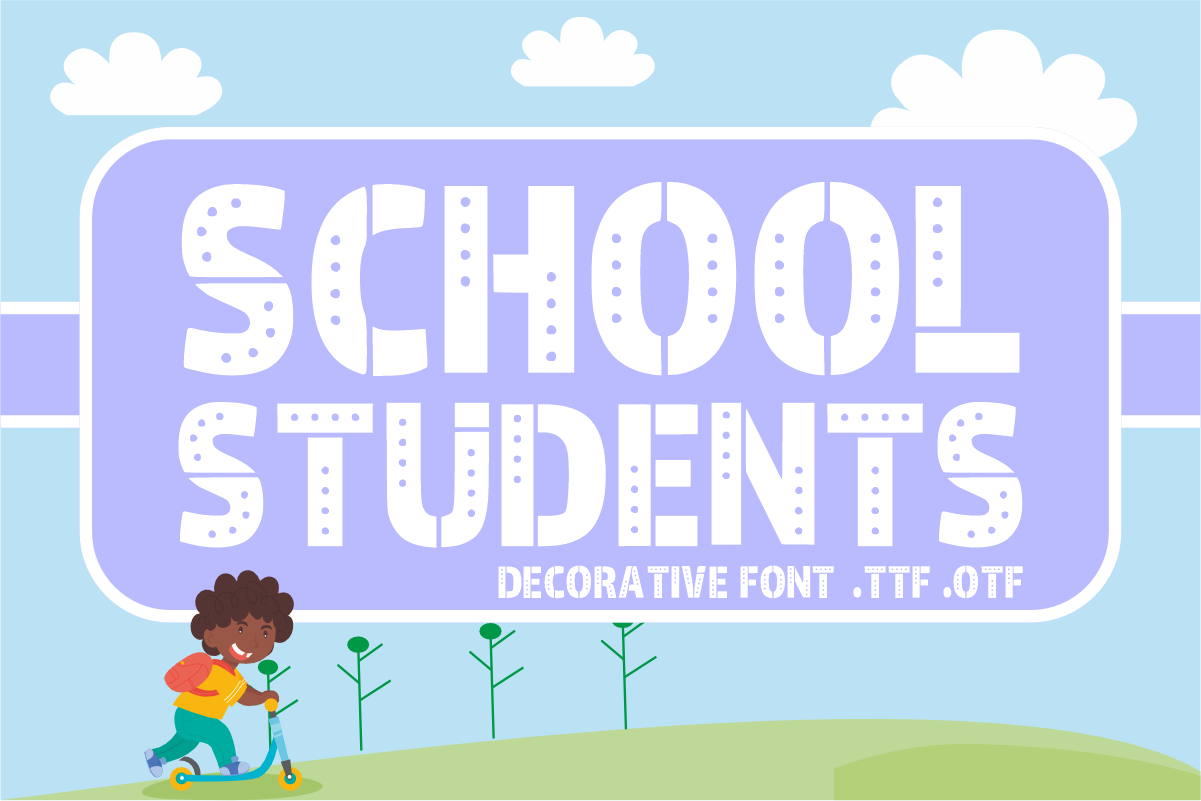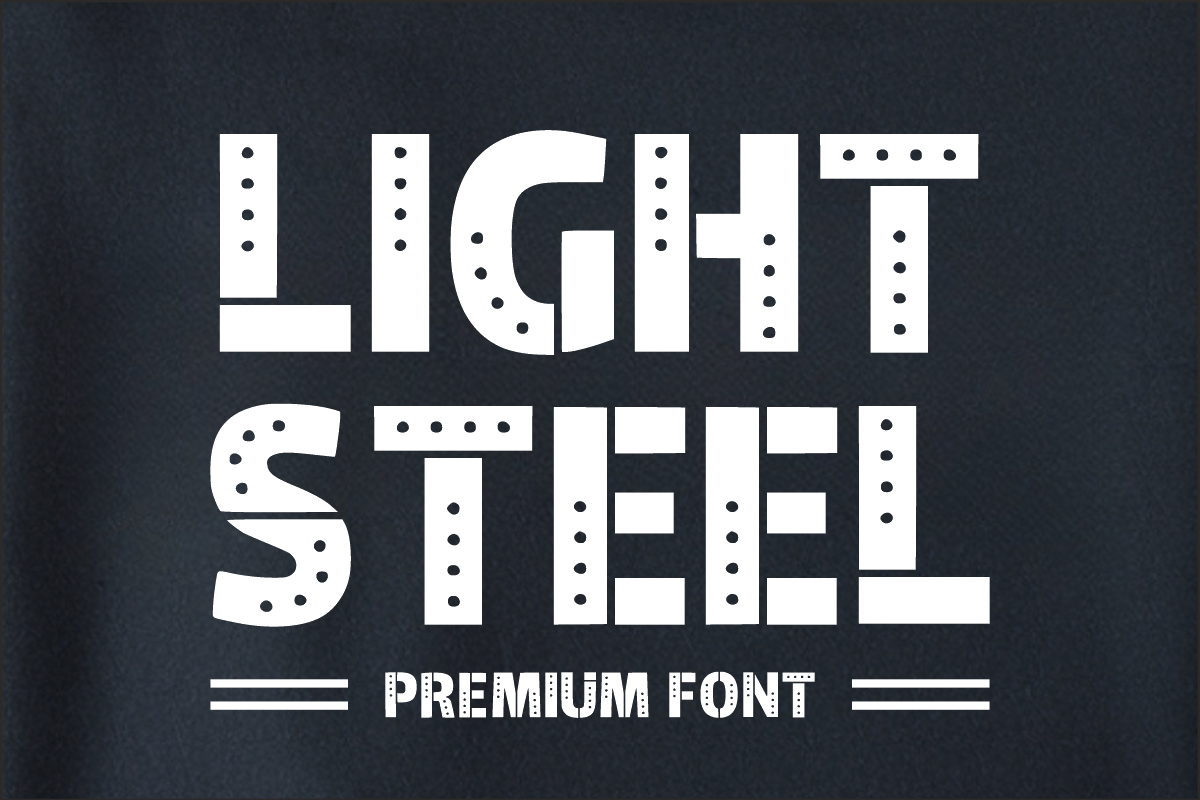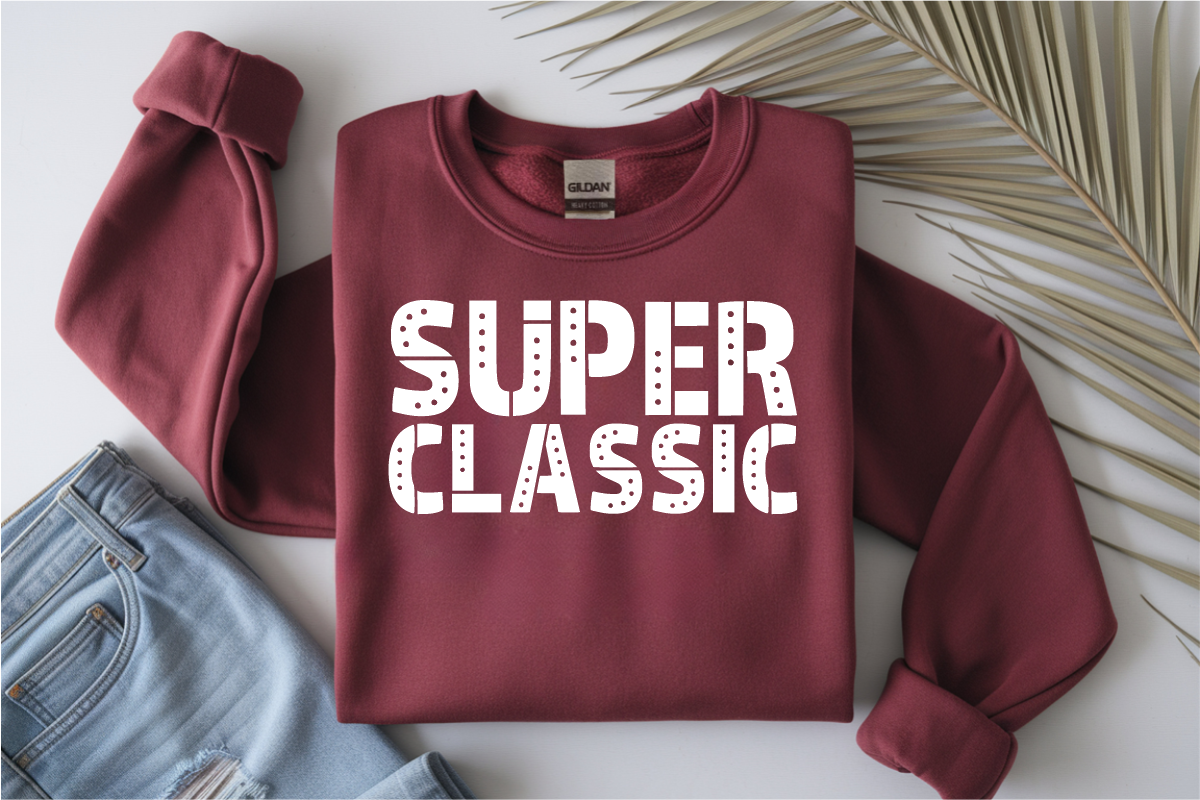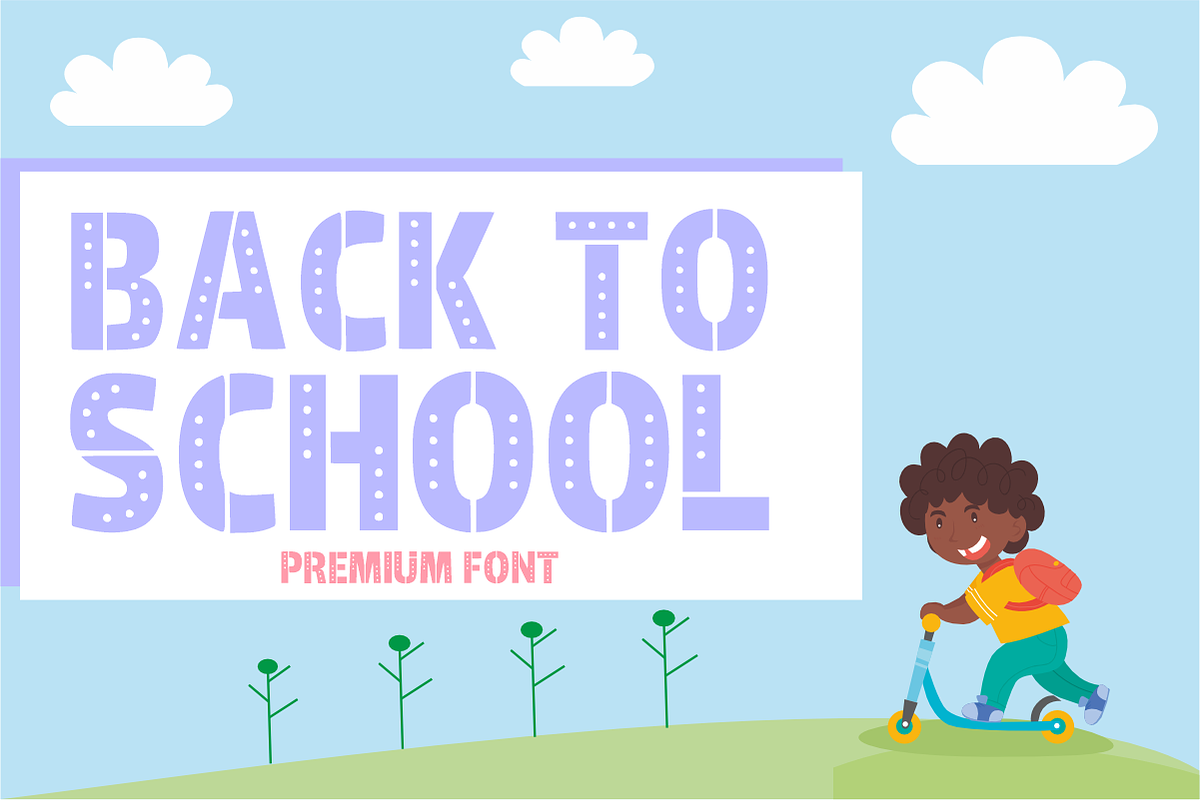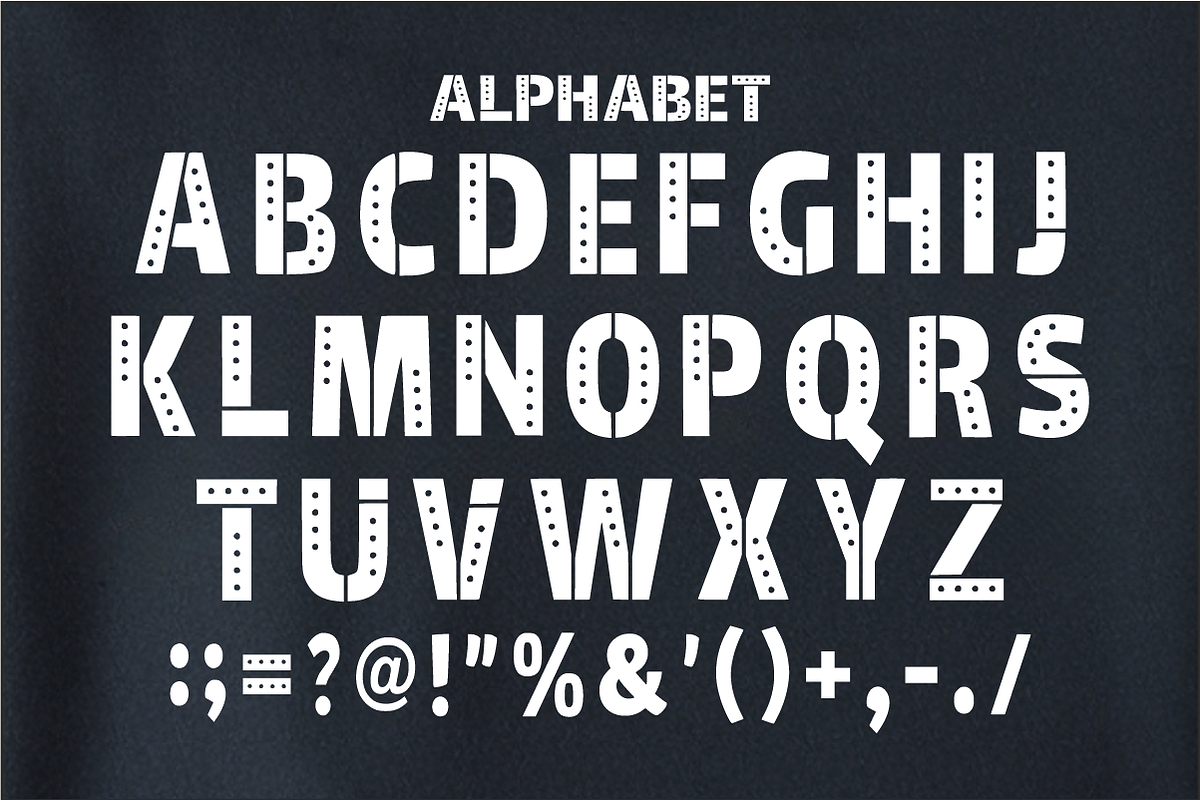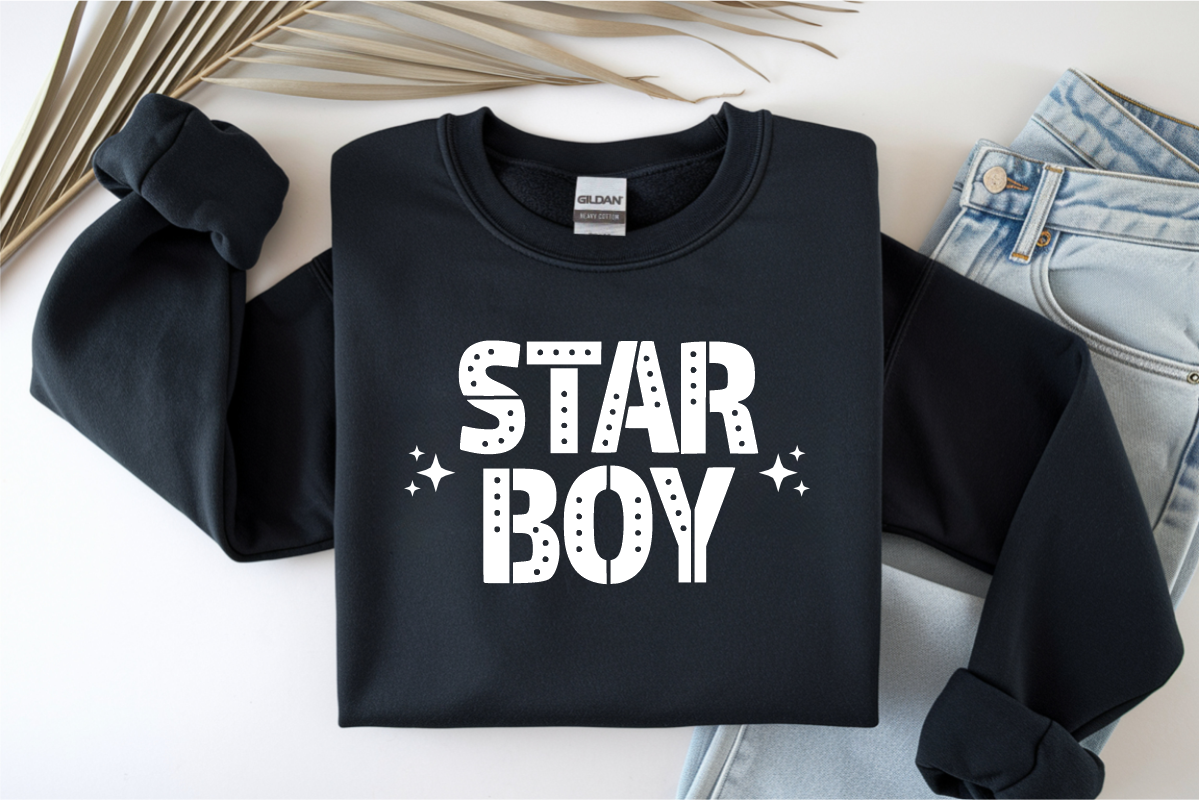
School Students - Cute Kids Font
School Students is a creative decorative display font featuring bold block letters with playful built-in dotted tracing lines. Specially crafted for educational materials, preschool worksheets, and classroom decor, this fun font makes reading and learning look engaging. Every character is cleanly vectorized to ensure high-quality printing and crisp digital layouts.
Uppercase Character Set
Numbers & Basic Punctuation
Ideal For:
Kindergarten worksheets and educational resources
Children's workbooks and tracing practice pages
Classroom banners, posters, and teacher decor
Kids' apparel, t-shirt prints, and labels
Custom flashcards, stickers, and planner decals
Playful branding and children's book layouts